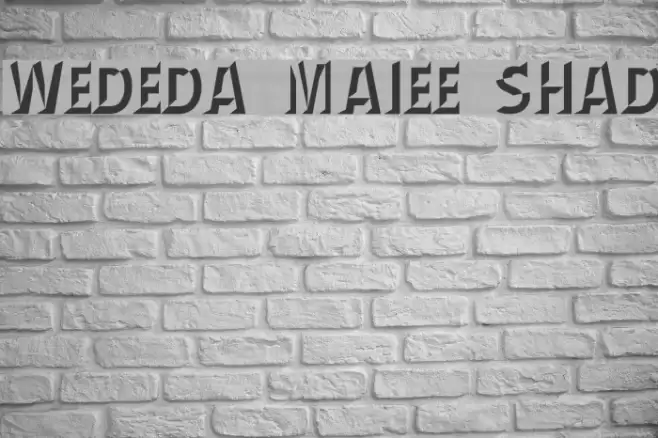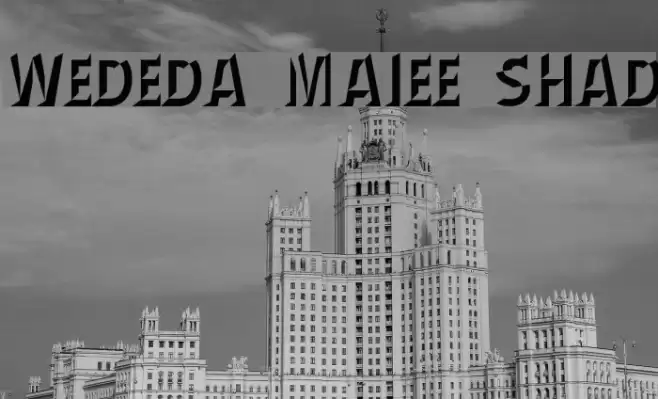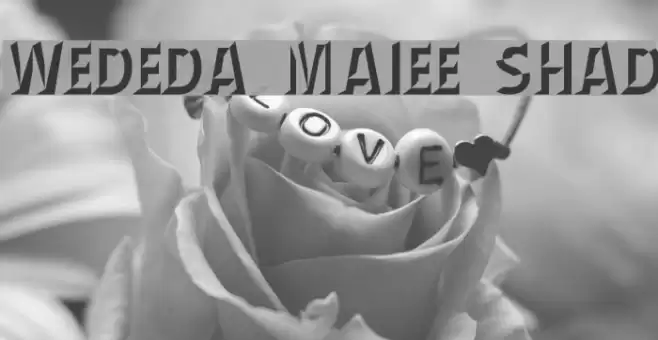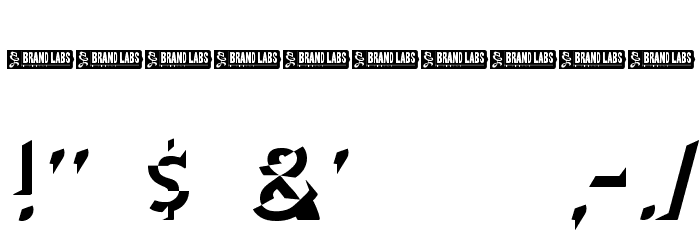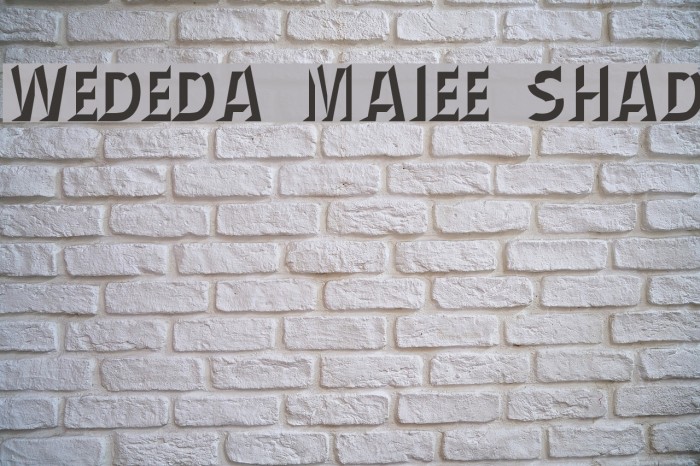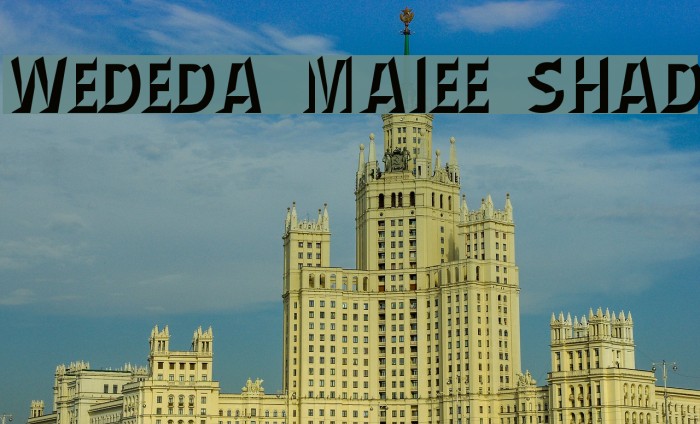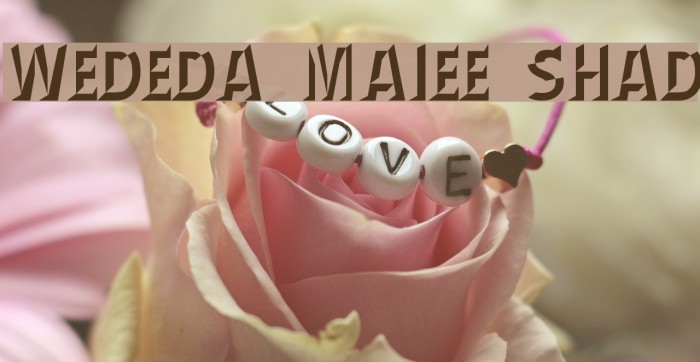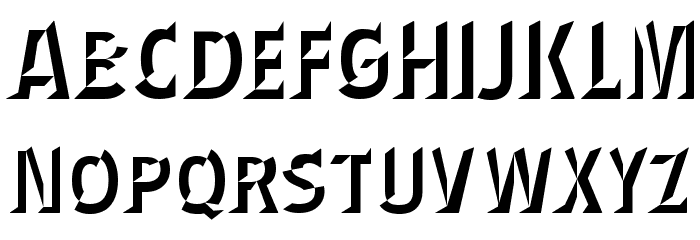
Wednesday Matinee Shadow Font
Wednesday Matinee Shadow Description
This font features a bold and dynamic style with a distinct shadow effect that gives it a three-dimensional appearance. The uppercase letters are prominently designed with sharp angles and a strong presence, making them ideal for attention-grabbing headlines. The font's unique shadowing adds depth and character, enhancing its visual appeal. It maintains a consistent weight throughout, ensuring readability while still offering a decorative flair. The special characters are creatively integrated, maintaining the overall aesthetic of the font. This font is perfect for projects that require a bold statement and a touch of creativity.
A bold, shadowed font with a three-dimensional effect, ideal for striking headlines from Uncategorized fonts.
- Proposed Projects: Perfect for posters, logos, branding materials, and any design needing a bold, eye-catching typeface.
- Overall Style: Modern, Decorative